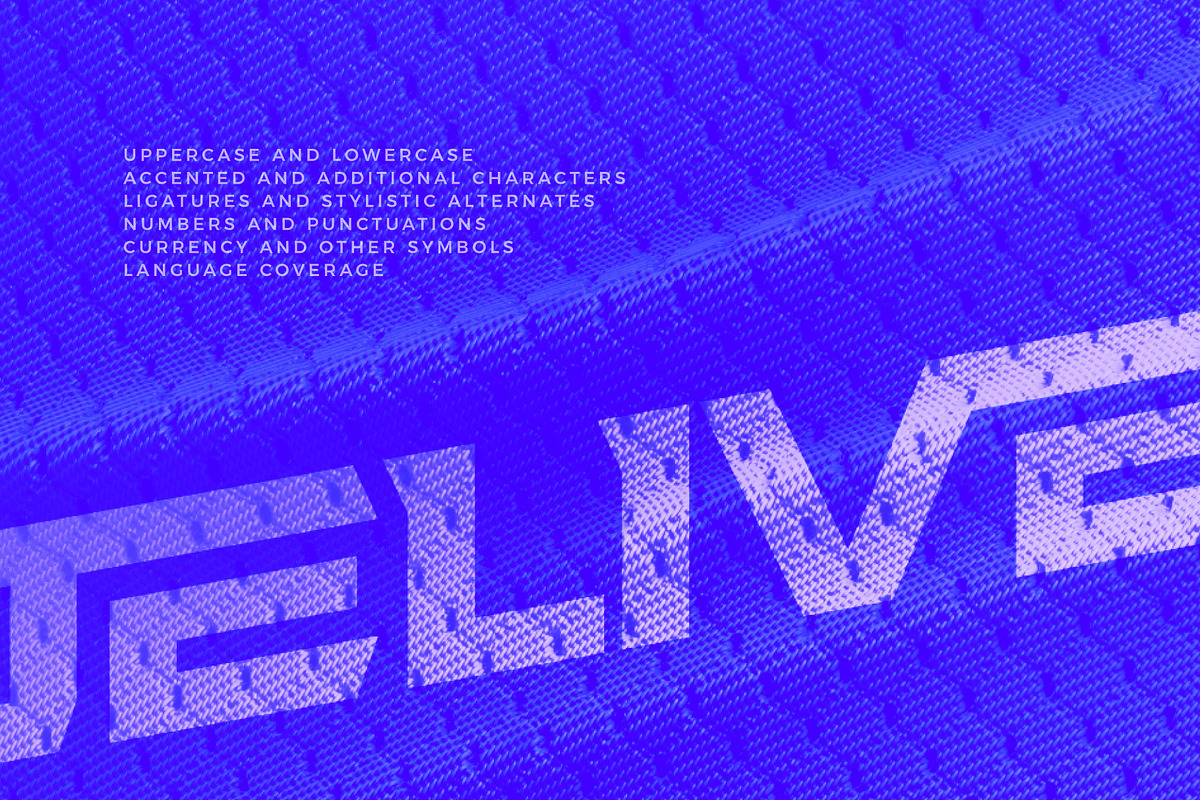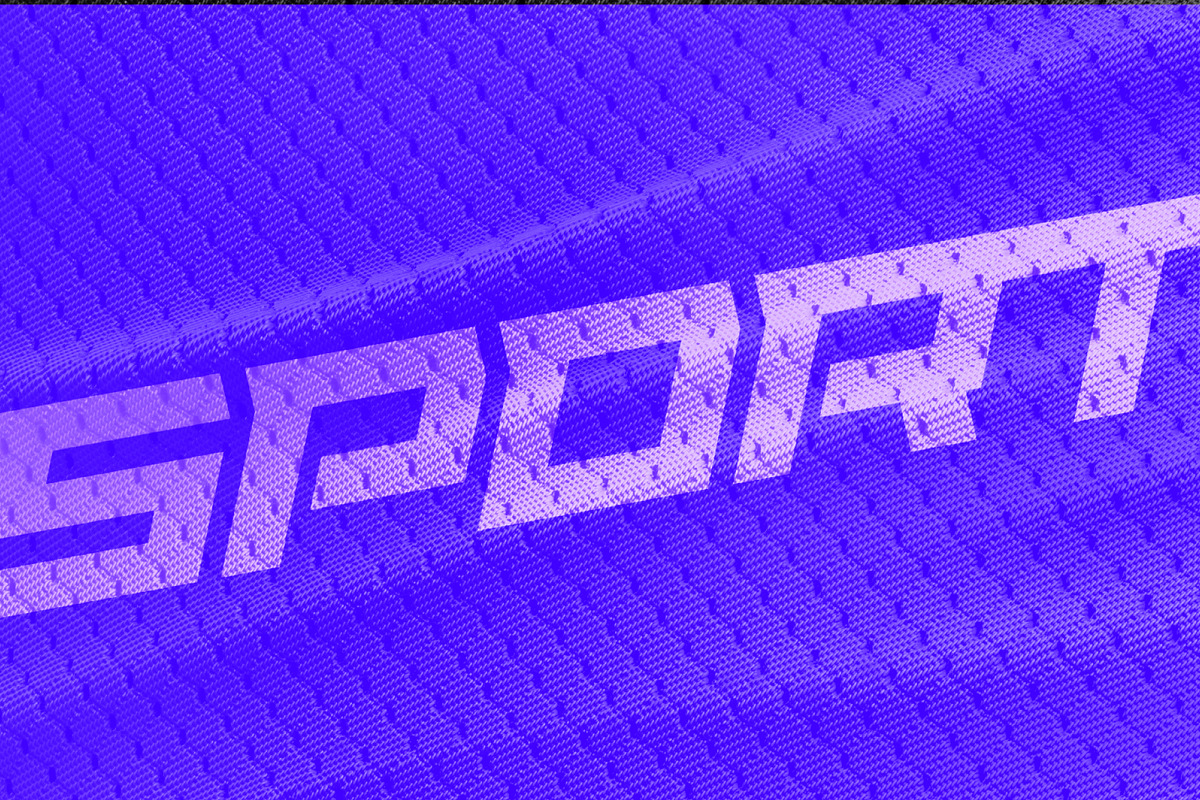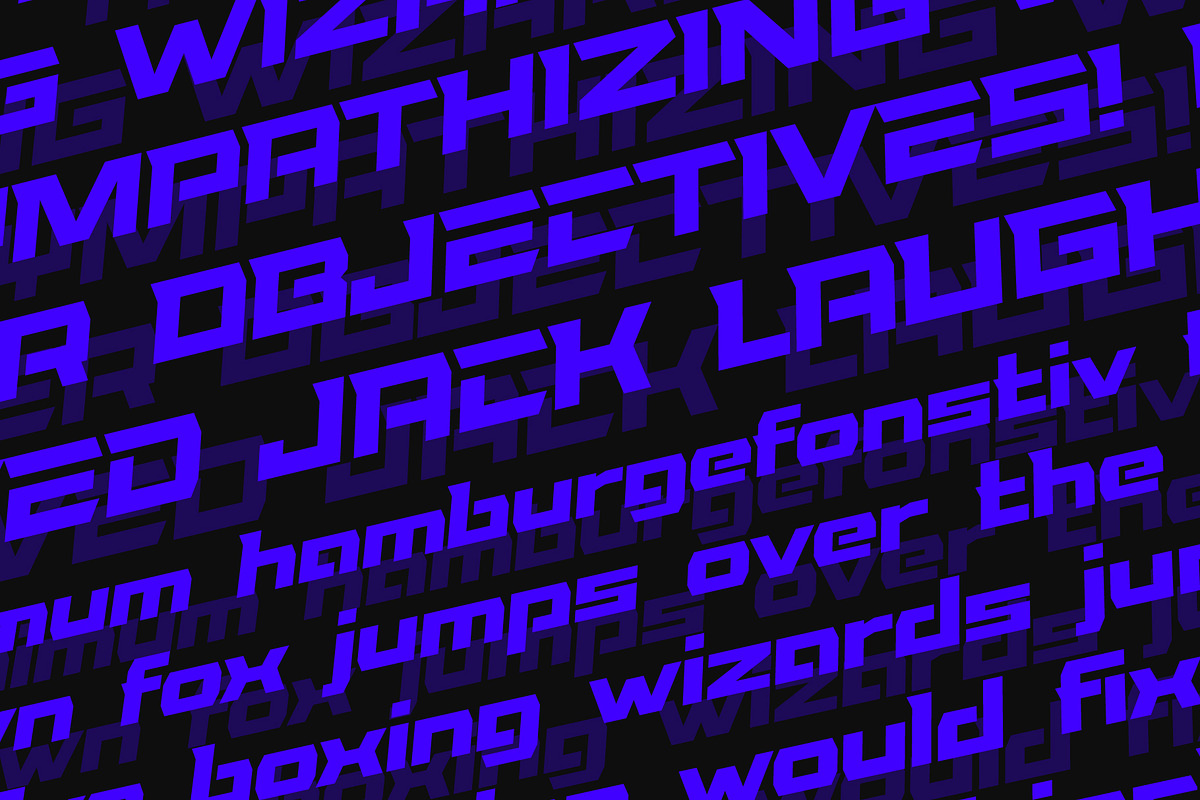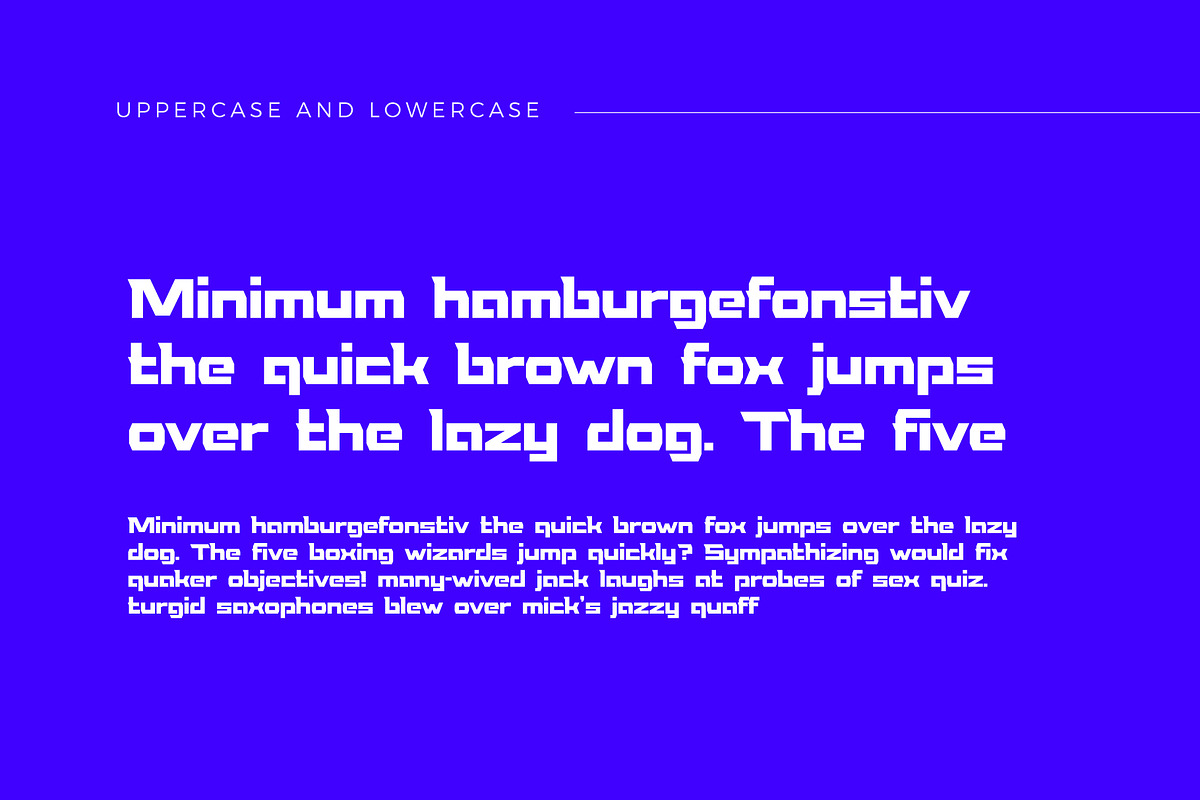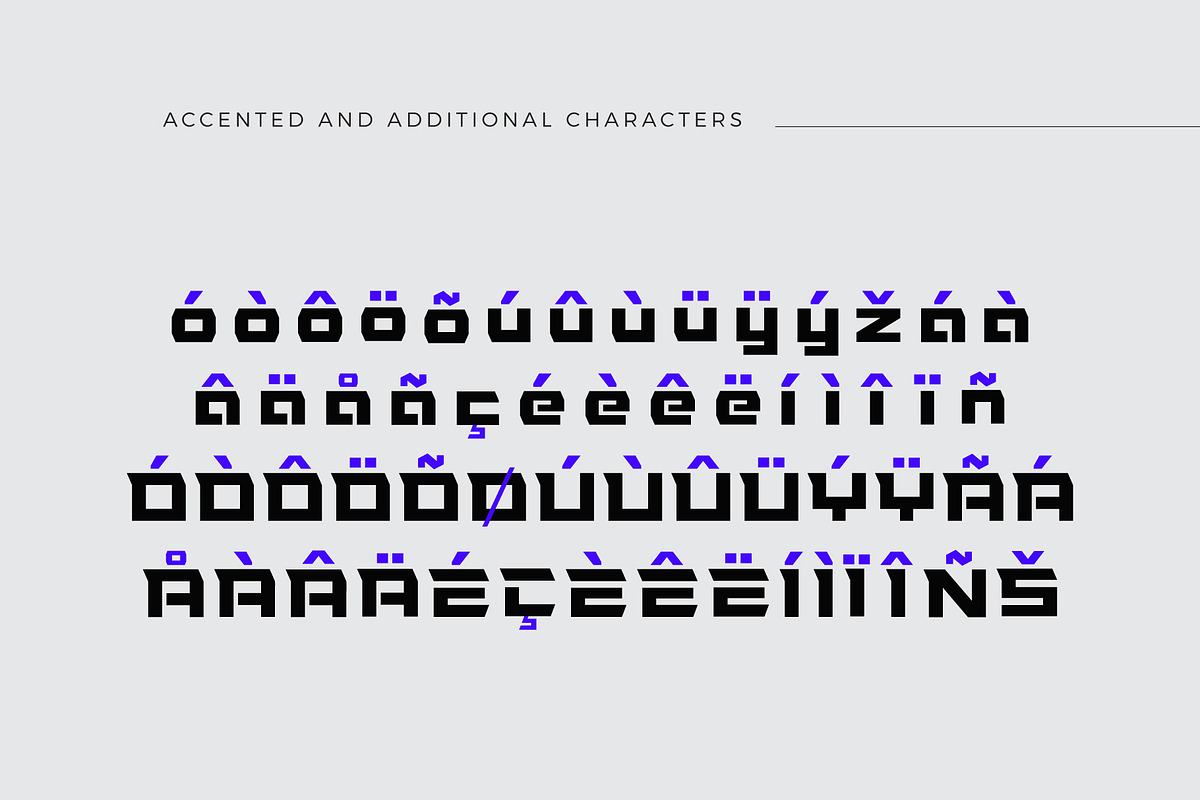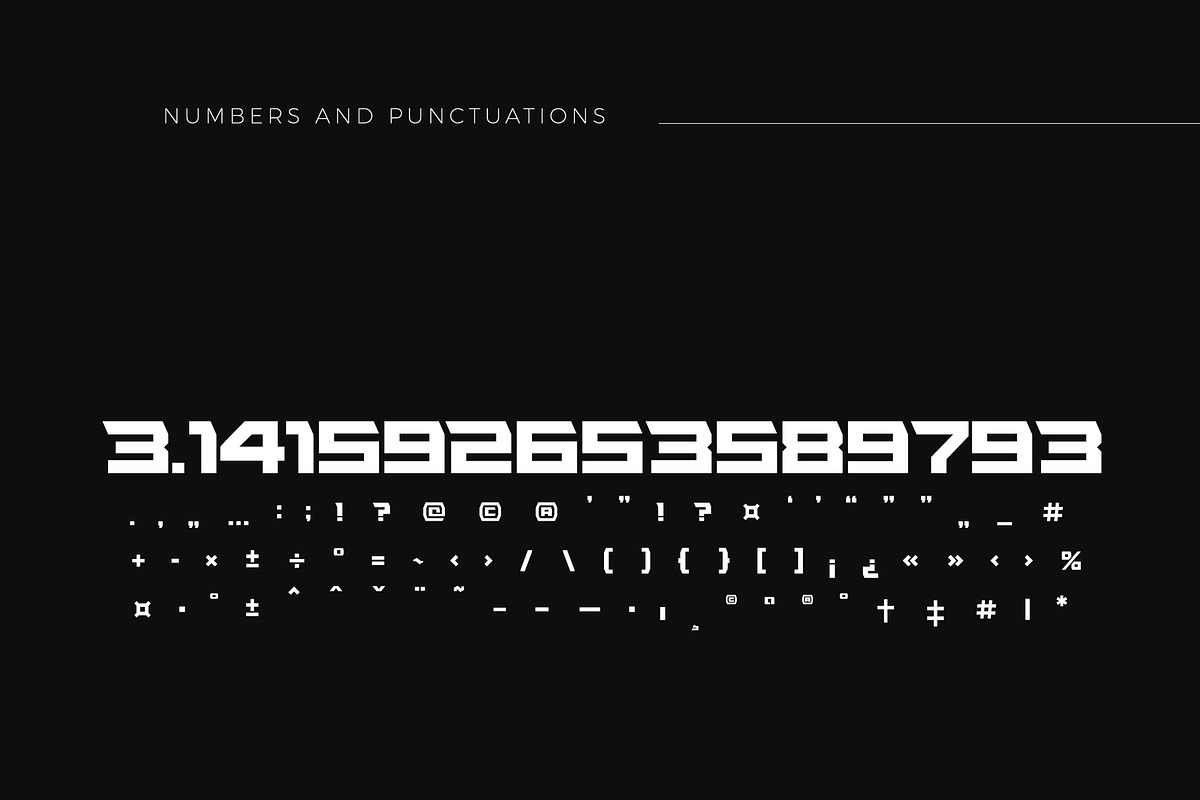
Delivery Headline Font
Bold Geometric Font "Delivery"
Delivery is a bold, geometrical font in square shapes with modern spurs, uppercase and lowercase, accented, additional characters ligatures and stylistic alternates, numbers and punctuations, currency and other symbols.
Delivery Headline Font by artyway fits naturally into Branding, posters, packaging, typography.